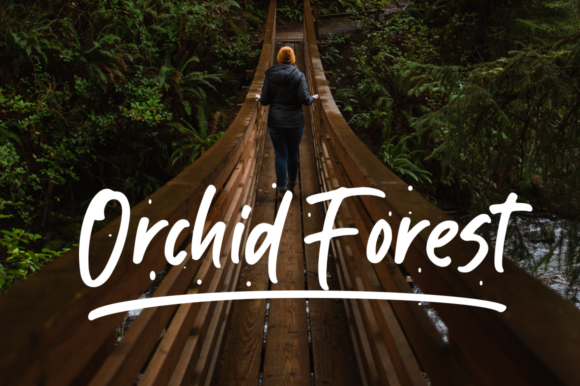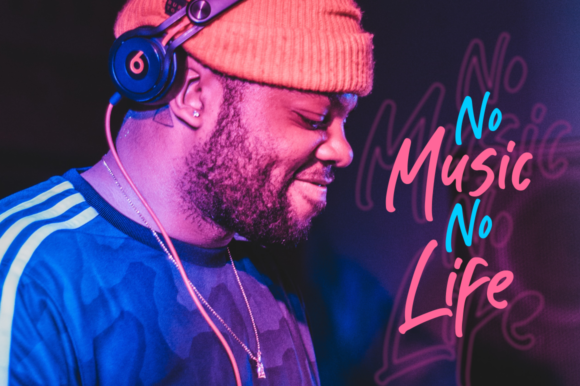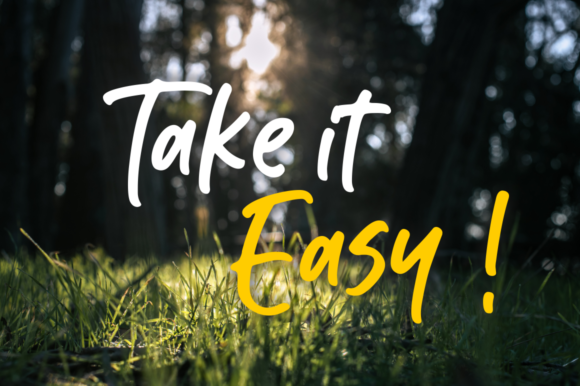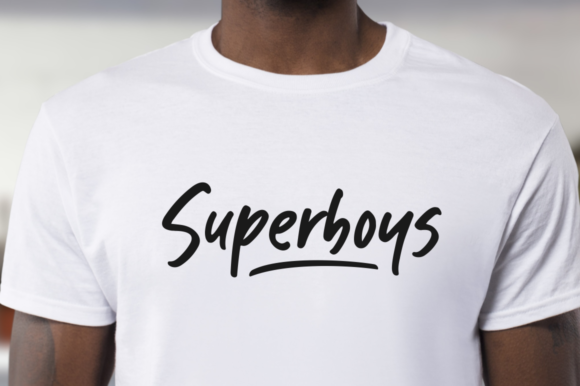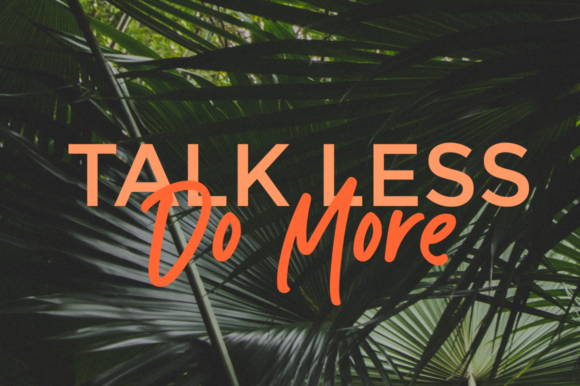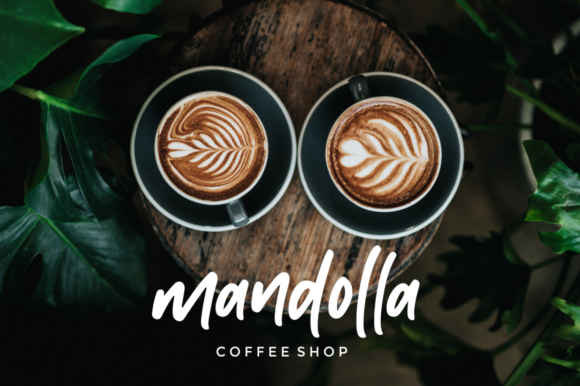
Introduction to Kabut Hitam Font
Have you ever been working on a creative project, pouring your heart and soul into it, only to realize that it’s missing that one final touch? That’s where the perfect font comes in – a game-changer that can elevate your design from ordinary to extraordinary. For designers, finding the right font can be a challenge, but what if we told you about a font that’s about to become your new best friend?
| 👤 Author | Sronstudio |
Meet the Kabut Hitam Font, a stunning light and playful script font that’s perfect for adding a bold and modern feel to any design project. With its high quality and versatility, this font is a valuable asset for designers looking to take their creative projects to the next level. And the best part? It’s available for free download, making it an accessible design resource for all.
Key Features of Kabut Hitam Font
- High-quality design suitable for creative projects, including posters, flyers, and digital art.
- Features a unique, modern aesthetic with a transparent background, allowing for versatility in design applications.
- Designed with a large x-height and open counters, making it suitable for body text and display typography.
Honest Review: Kabut Hitam Font
I recently had the chance to work with the Kabut Hitam Font, and I must say, it’s a great addition to any designer’s toolkit. This high-quality font is perfect for creative projects that require a unique and modern touch.
- ✨ The transparent background makes it easy to use in a variety of design scenarios.
- ✨ The font’s modern and sleek design makes it perfect for a wide range of creative projects.
- ⚠️ The font may not be suitable for very formal or traditional projects, as it has a somewhat edgy feel.
- ⚠️ The font may not be as versatile as some other fonts, as it’s quite modern and may not work well with more traditional design elements.
Overall, I’m really impressed with the Kabut Hitam Font. It’s a great resource for designers looking for a unique and modern touch, and it’s free to boot! With a little creativity, the possibilities are endless.
Tips for Getting the Most Out of Kabut Hitam Font
When using Kabut Hitam Font, remember to adjust the font size and style to suit your design needs. You can also experiment with different font combinations to create a unique look. Additionally, use the font in conjunction with other design elements, such as images and graphics, to create a visually appealing design resource.
Kabut Hitam Font is ideal for various design projects, including logos, business cards, and social media graphics. It’s also perfect for creating a design resource with a transparent background, such as a website or app icon. With its unique and creative touch, Kabut Hitam Font is a valuable addition to any designer’s toolkit.
Can I use Kabut Hitam Font with a transparent background?
Kabut Hitam Font is designed to work well with transparent backgrounds, making it ideal for graphic design and digital art projects. To use the font with a transparent background, simply place the font on top of a transparent layer in your design software, and adjust the font settings as needed.